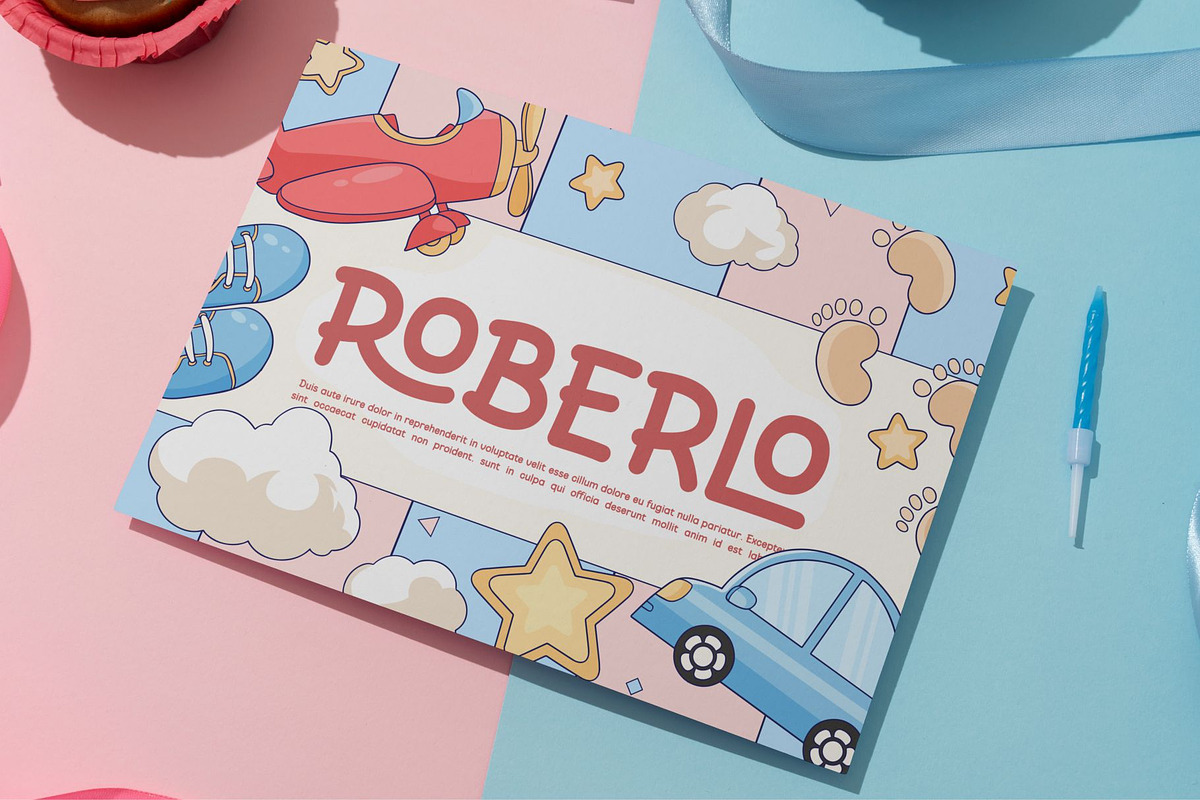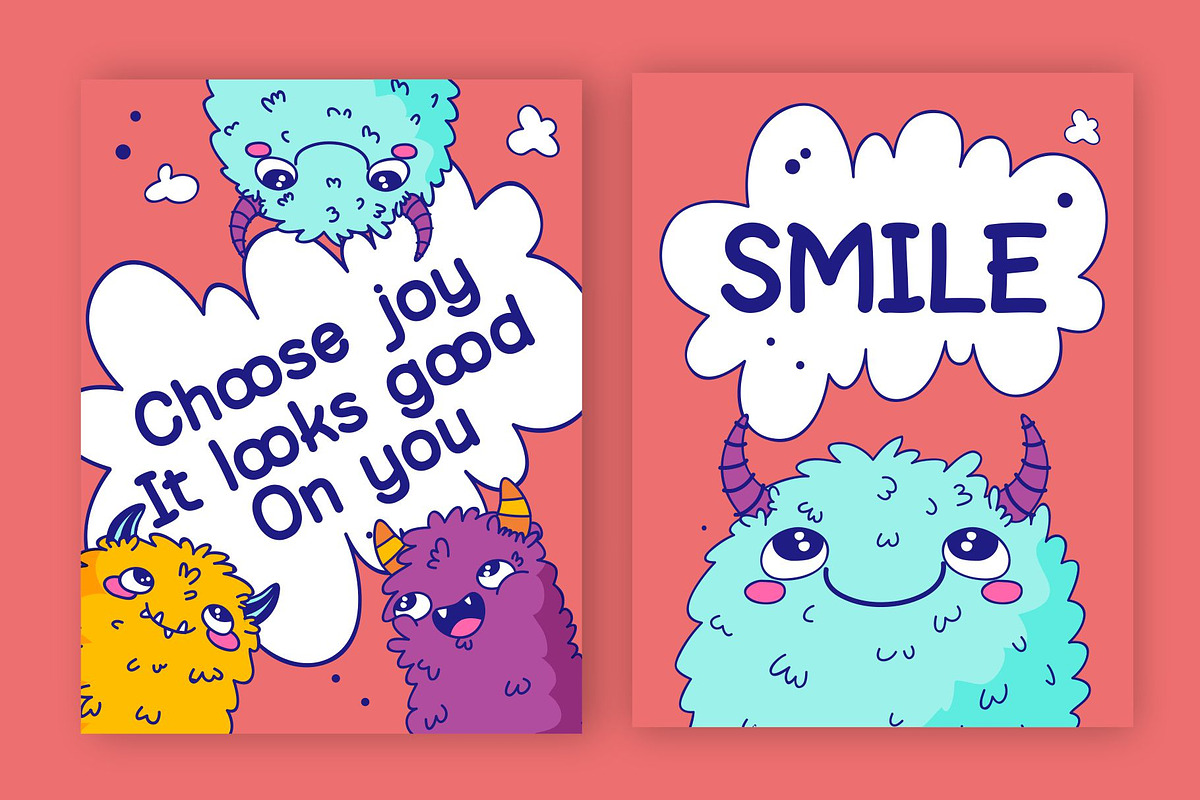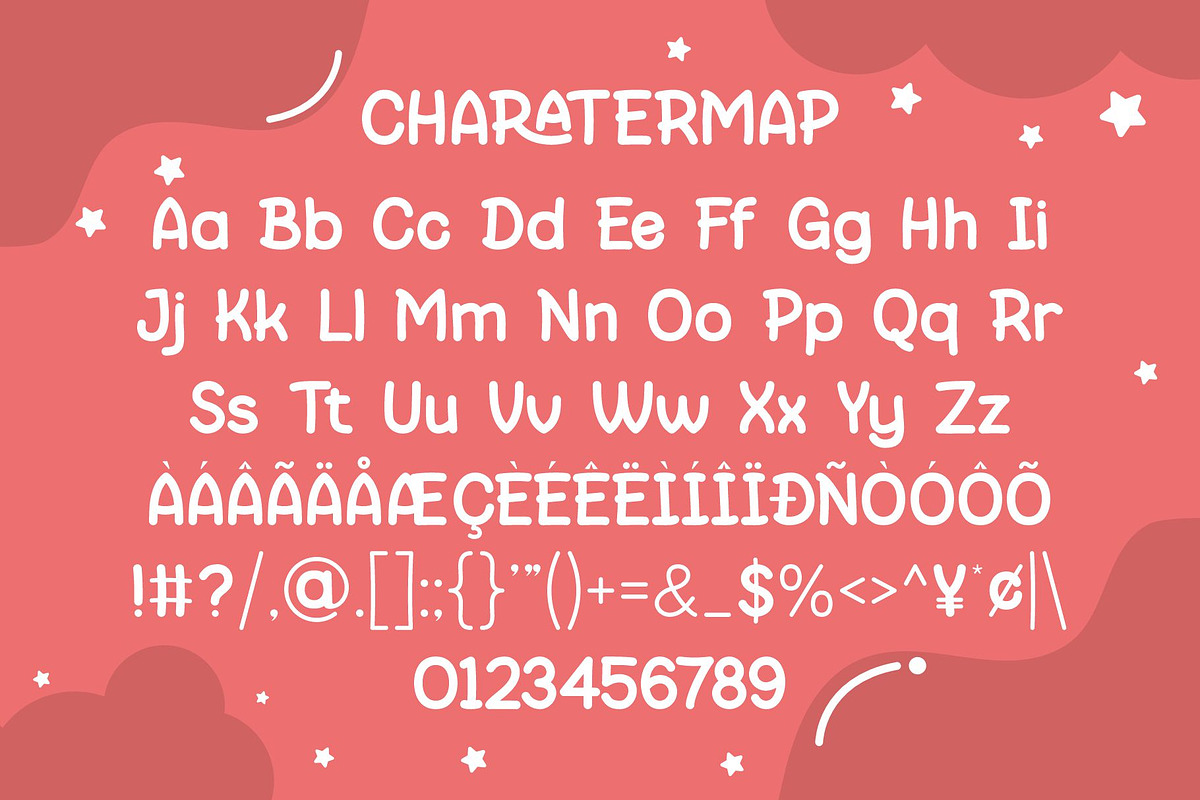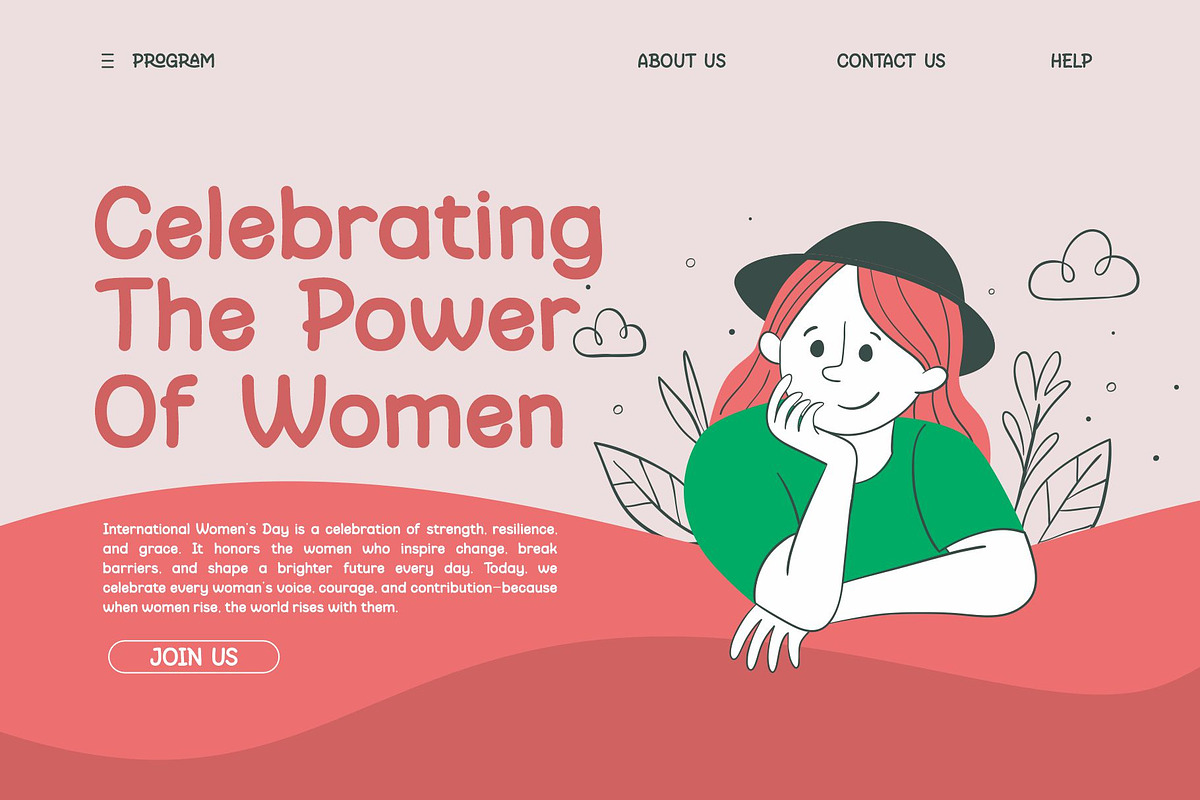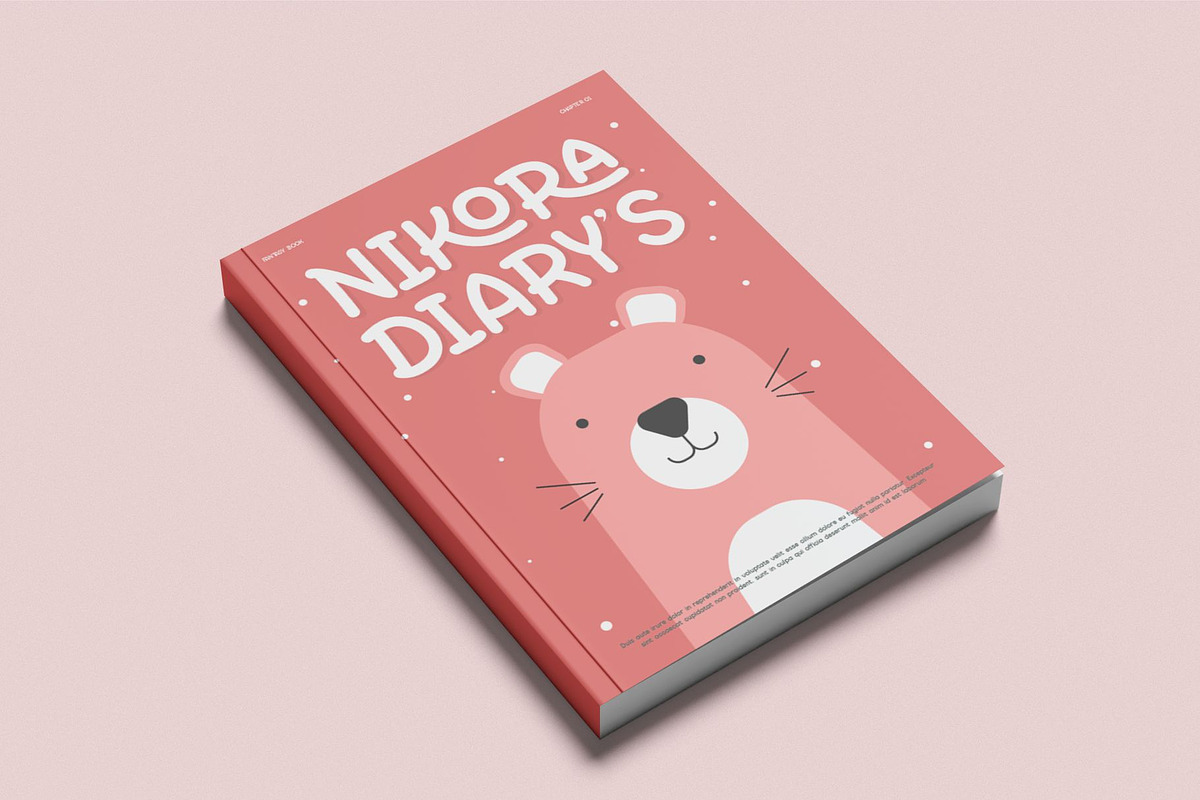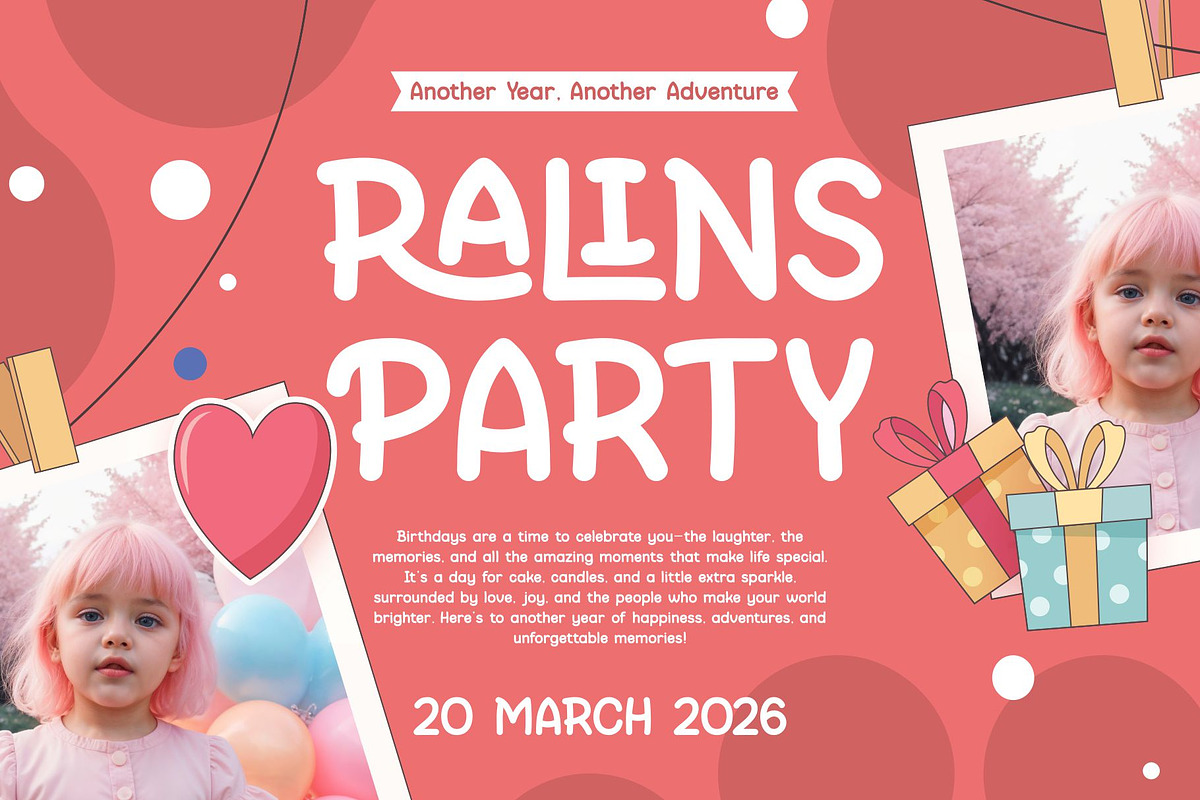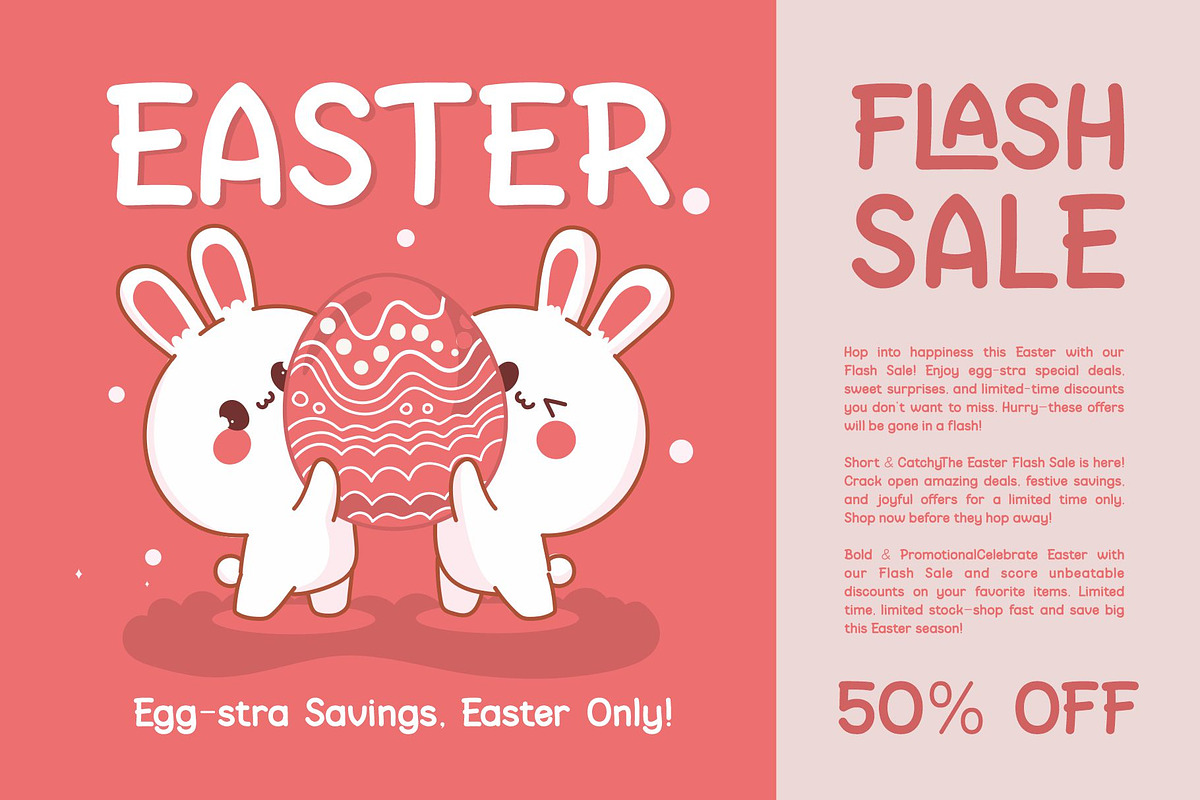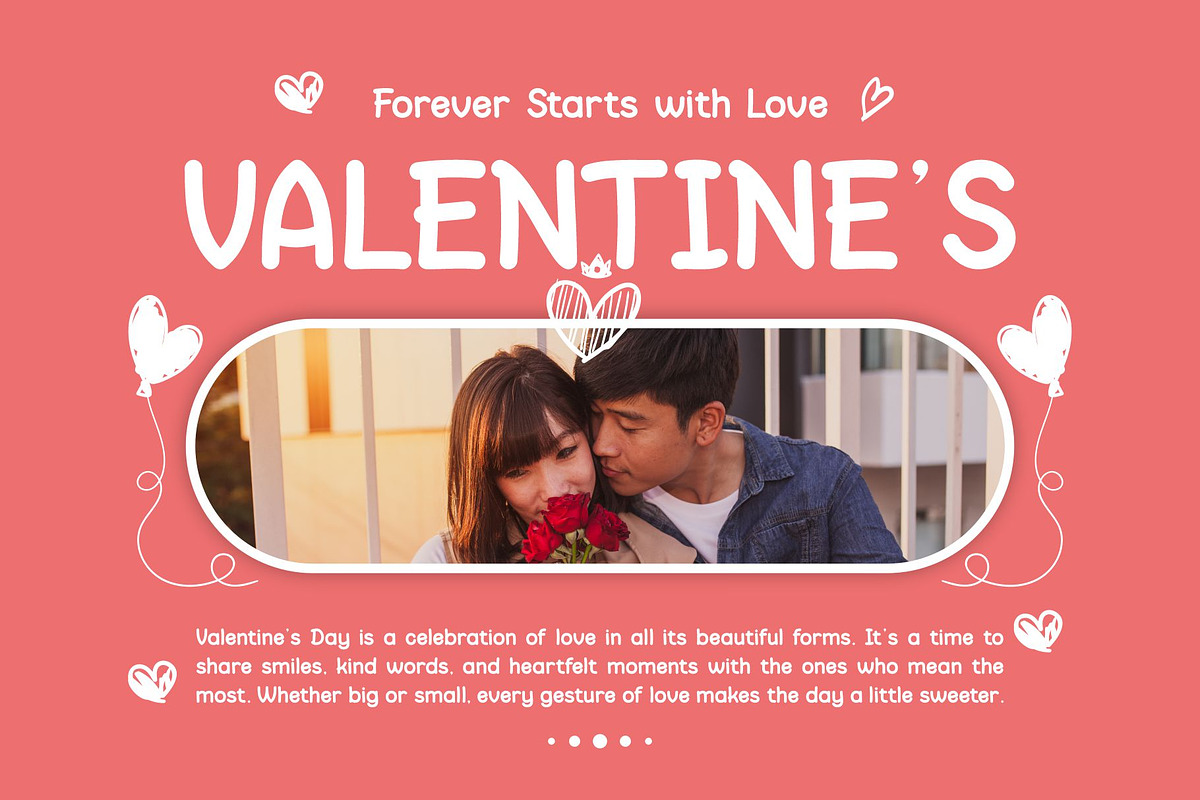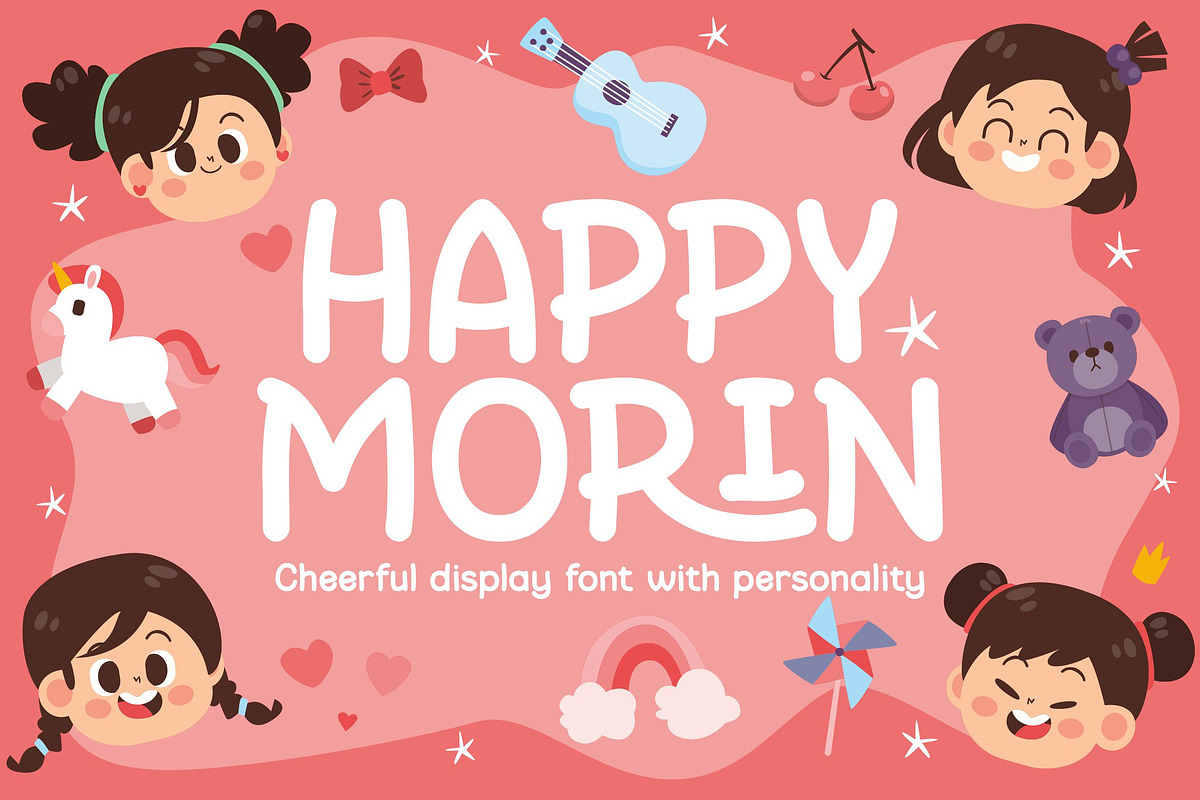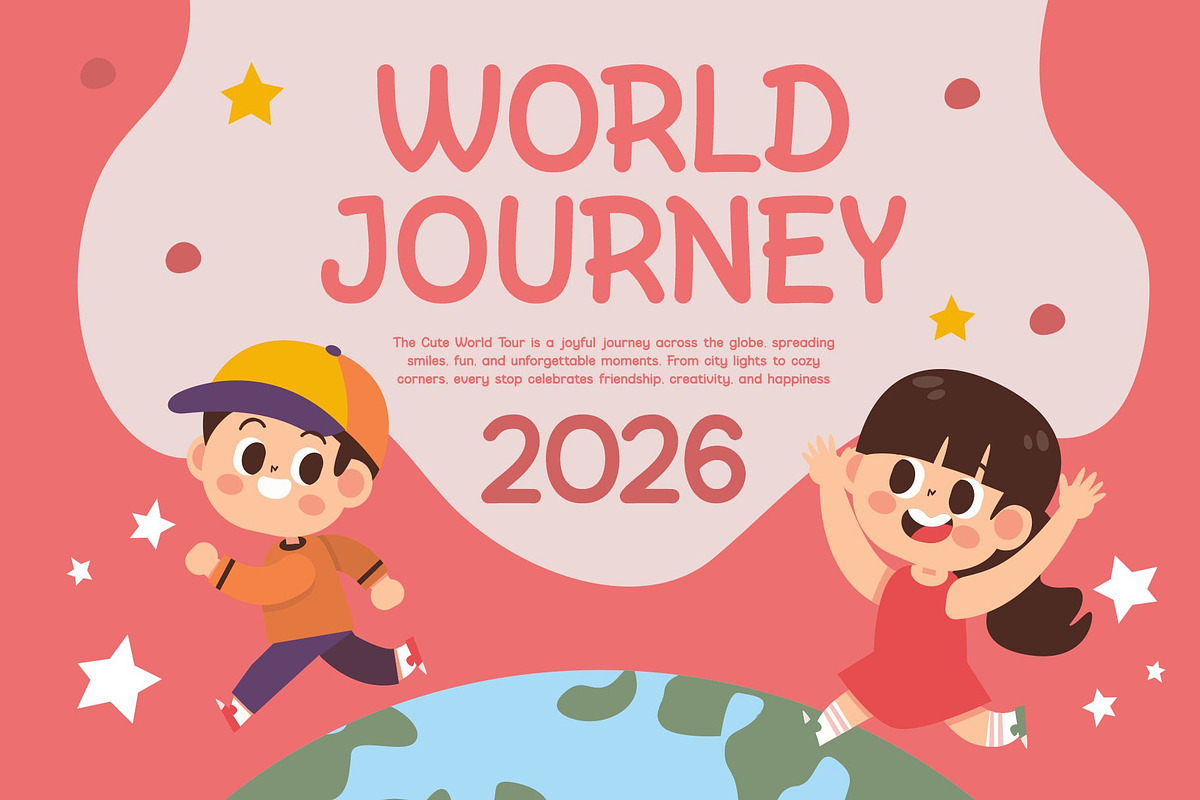
Happy Morin | Modern Playful Display
Happy Morin sisplay is a modern and Playful font type for all branding and logo designs. This modern and Playful display font has a beautiful character. This font is suitable for invitation card designs, cool logos, movie titles, movie names, business cards, book titles, brand names, and various other designs. Happy Morin is a smooth display font that exudes sophistication and the moment. Its stylish ligatures make this font a perfect partner for any project.